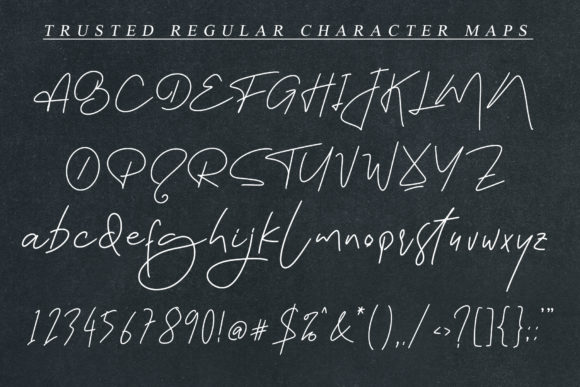
Trusted Font
Trusted is a beautiful light handwritten font with a unique feel and a stunning impact. It will add a luxury spark to any design project that you wish to create! This font is PUA encoded which means you can access all of the glyphs and swashes with ease!